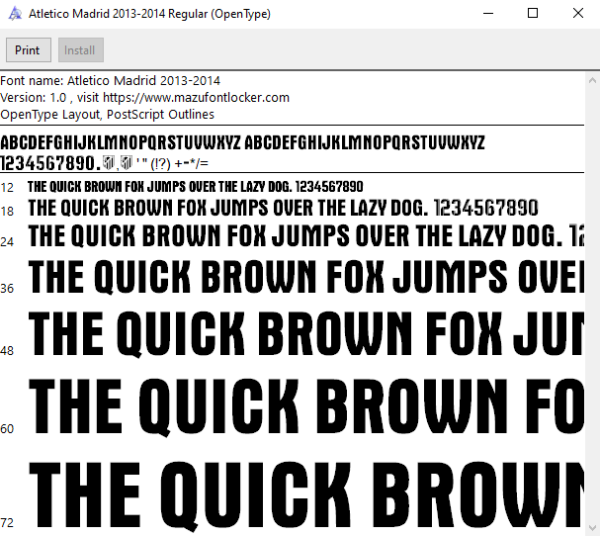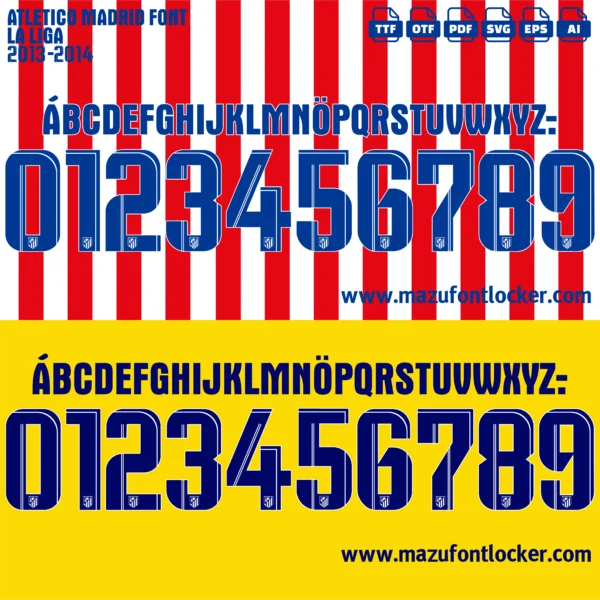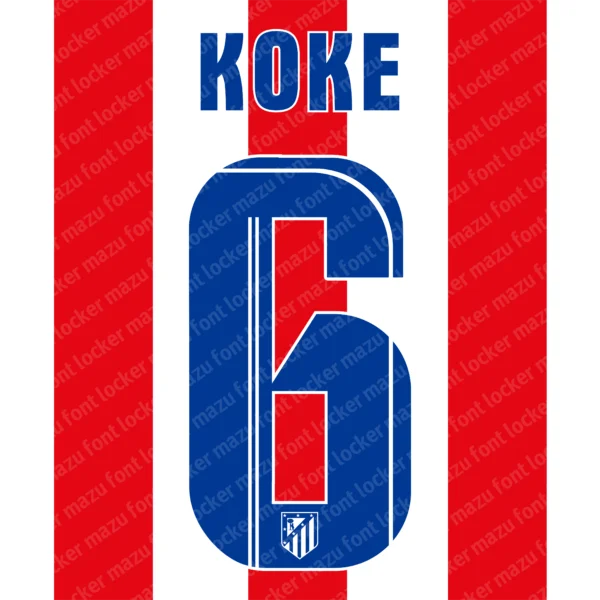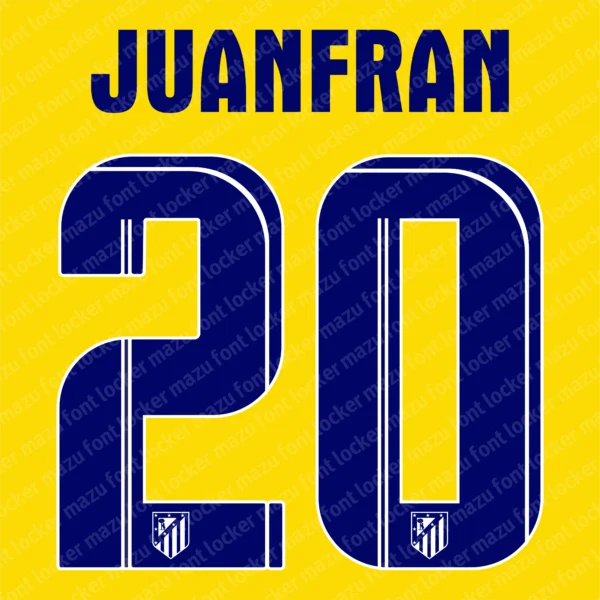
Atletico Madrid 2013-2014 Font Vector – Iconic Red & White Typeface
The Atletico Madrid 2013-2014 Font Vector is a premium typeface that accurately recreates the official match lettering worn by Atletico Madrid during the 2013-2014 season. This high-quality vector font kit captures the bold, clean, and instantly recognizable typography that perfectly complements the club’s iconic red and white identity.
Designed for professional designers, football enthusiasts, and passionate Atletico Madrid supporters, the Atletico Madrid 2013-2014 Font Vector delivers exceptional authenticity for creating realistic jersey mockups, football merchandise, social media graphics, match posters, and custom fan artwork. Every character has been carefully recreated to match the powerful and precise visual style of one of Spain’s most successful football clubs.
This font stands out thanks to its precise vector construction and authentic club styling. Every letter and numeral has been meticulously recreated to match the official shirt lettering used throughout the 2013-2014 La Liga and UEFA Champions League campaigns. Whether you’re producing professional kit templates or creating eye-catching football content, the Atletico Madrid 2013-2014 Font Vector delivers a genuine match-ready appearance.
The lettering featured in the Atletico Madrid 2013-2014 Font Vector combines clean geometric lines with powerful modern proportions. The result is a premium and highly readable typeface that reflects Atletico Madrid’s fighting spirit, precision, and legendary status in Spanish and European football.
• Complete uppercase A–Z alphabet and numbers 0–9 in authentic Atletico Madrid 2013-2014 style
• Includes authentic La Liga and UEFA Champions League badge glyph placement beneath player numbers
Atletico Madrid 2013-2014 Season
The 2013-2014 season was a historic chapter for Atletico Madrid as they clinched the La Liga title under Diego Simeone, showcasing incredible resilience and tactical brilliance. Wearing their signature red and white colors, the club delivered one of their most memorable campaigns in modern football history.